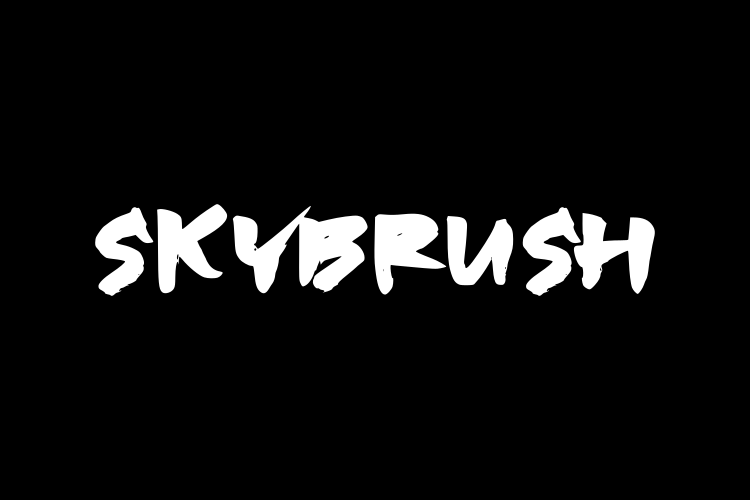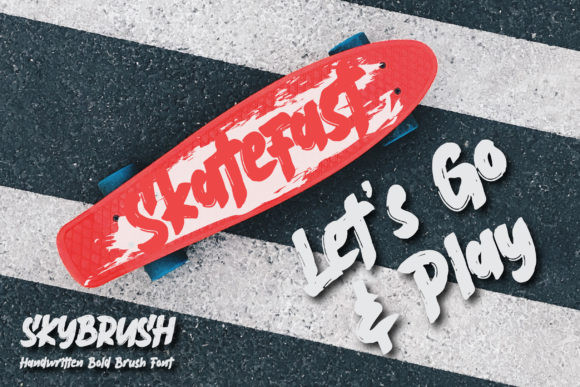
Spray Font Dafont Skybrush by selawetype in script > brush 28,705 downloads (10 yesterday) 100% free 2 font files download donate to author. Skybrush regular font by letter battoyart. file script name skybrush.ttf download free for personal use.
Skygraze Font Dafont Download skybrush font for windows and mac. skybrush font was designed by haris prawoto and has been downloaded 18,314 times. Get the skybrush font free! a bold, hand painted font perfect for logos, posters, and edgy designs. download now and unleash your inner artist!. Download skybrush font for pc mac for free, take a test drive and see the entire character set. moreover, you can embed it to your website with @font face support. If you're searching for a typeface that embodies sky artistry and brush painted aerial expression, skybrush font free download is your artistic companion. this font delivers authentic creative appeal for artistic brands, sky inspired projects, and expressive designs celebrating aerial brushwork.